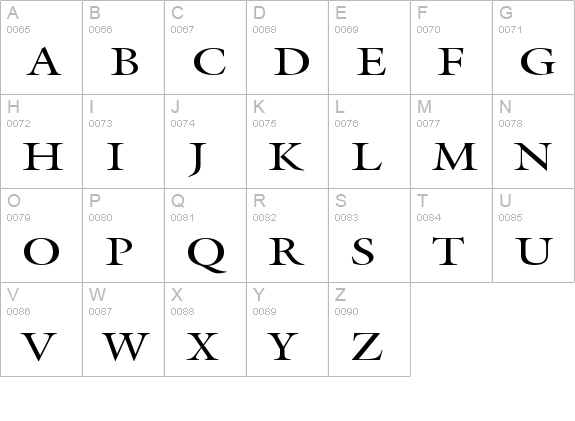
Coverdale-Extended Normal Font Details
Coverdale-Extended Normal is the standard, neutral, extended-width variant in the Coverdale typeface family \xE2\x80\x94 well suited to general body text, paragraphs, and standard typographic work.
Coverdale-Extended Normal is a modern and elegant font that exudes sophistication and style. With its clean lines and sleek design, this font is perfect for a wide range of design projects, from branding to editorial layouts. The extended characters give it a unique and distinctive look, making it stand out from the crowd. The best part? Coverdale-Extended Normal is available for free download at FontsMarket.com. That's right, you can add this stunning font to your collection without spending a dime. So why wait? Elevate your designs with Coverdale-Extended Normal today!